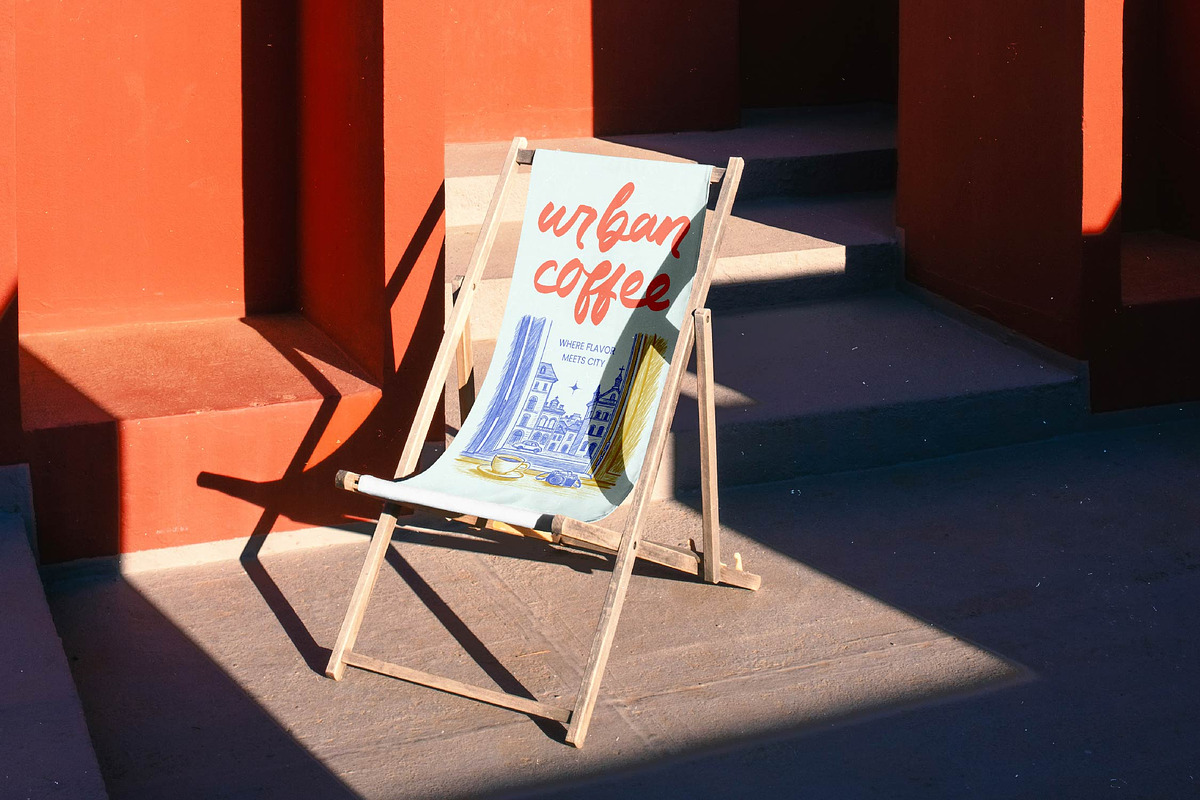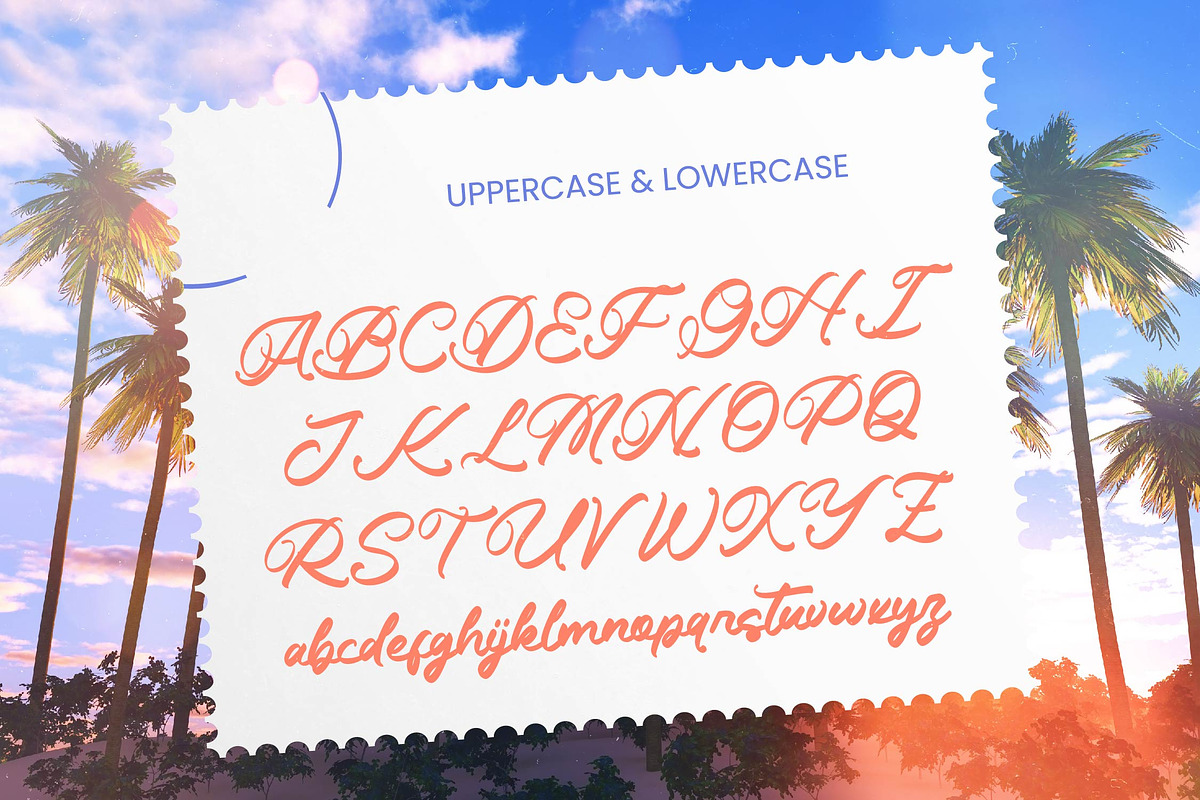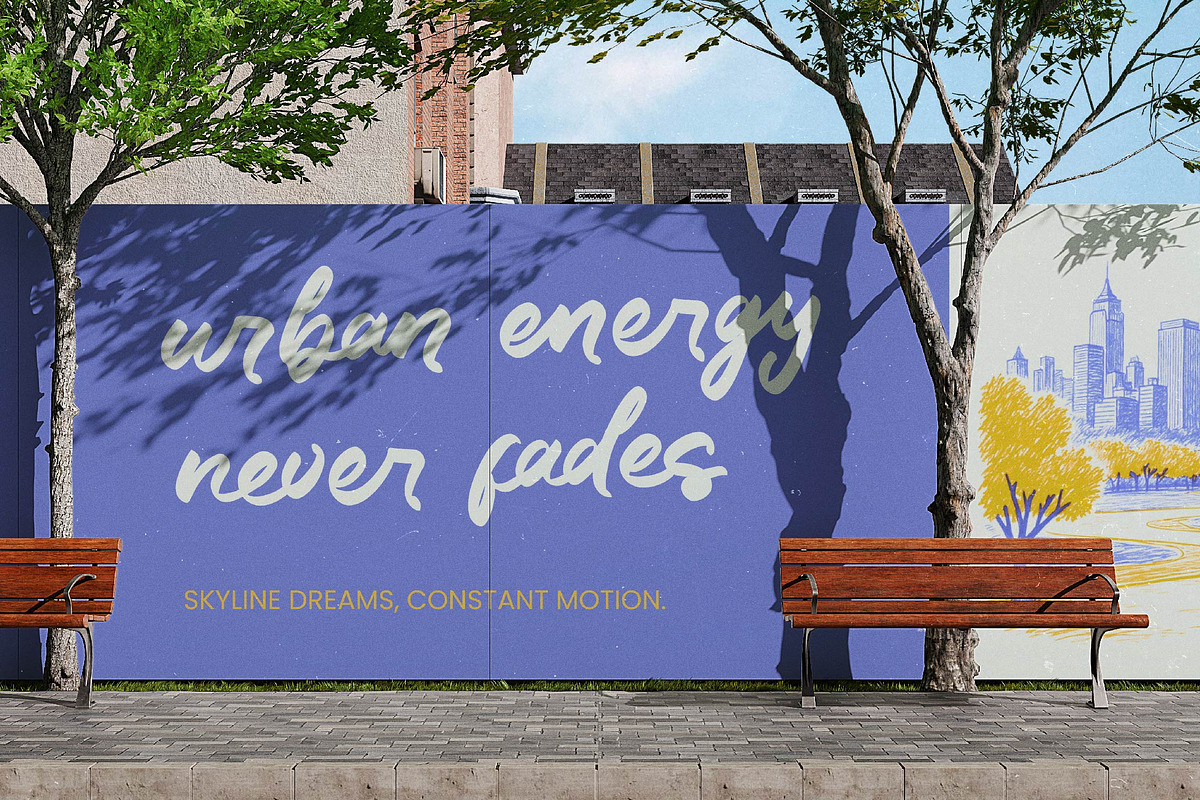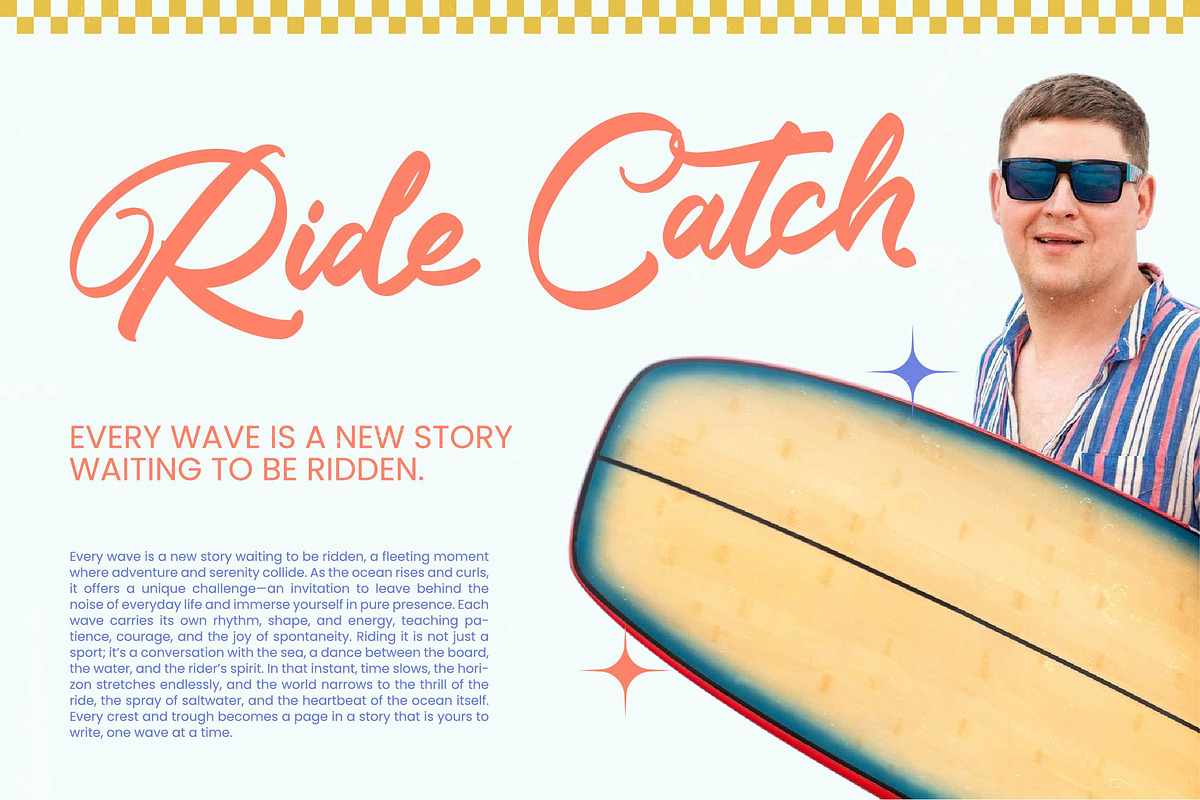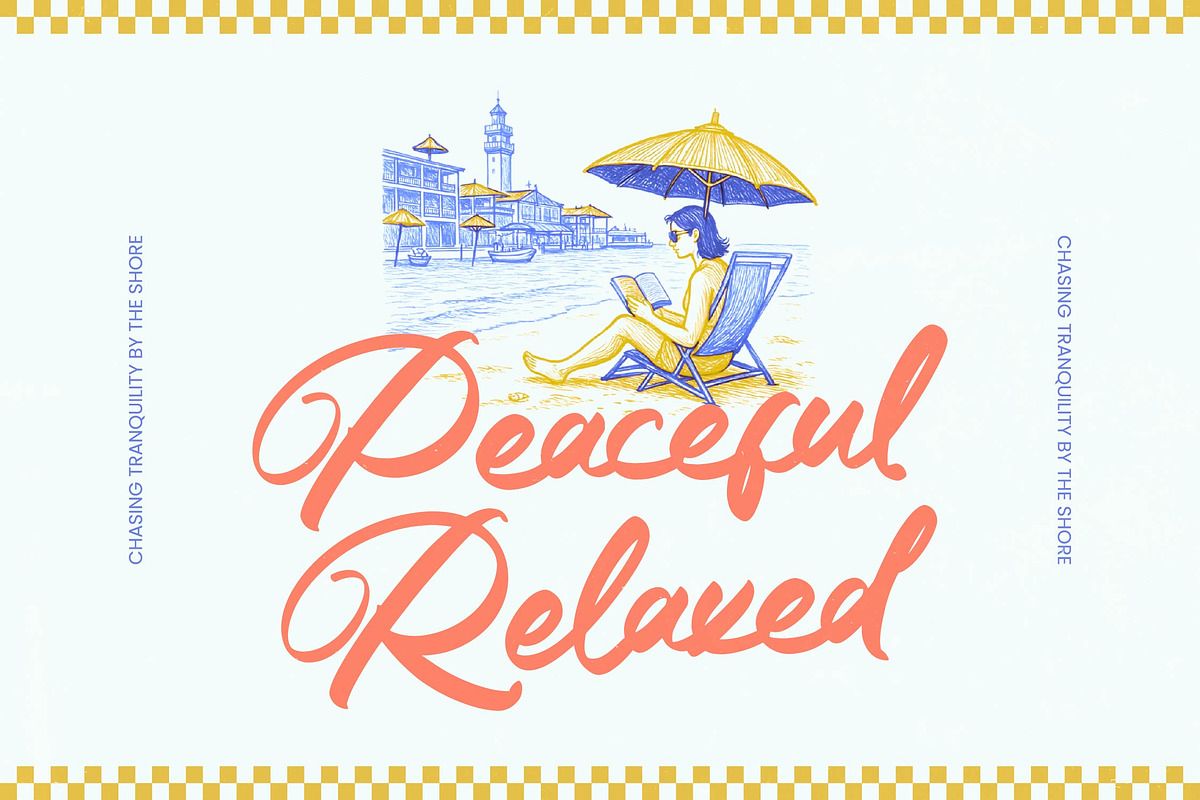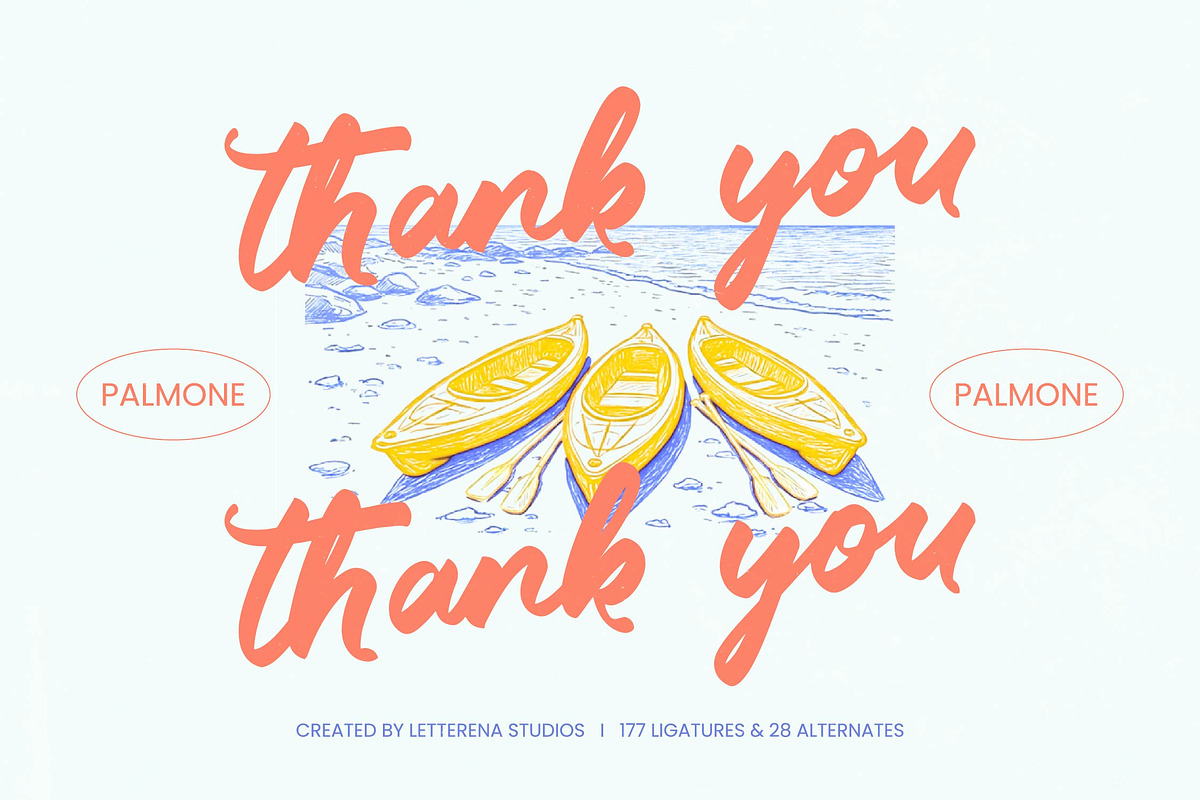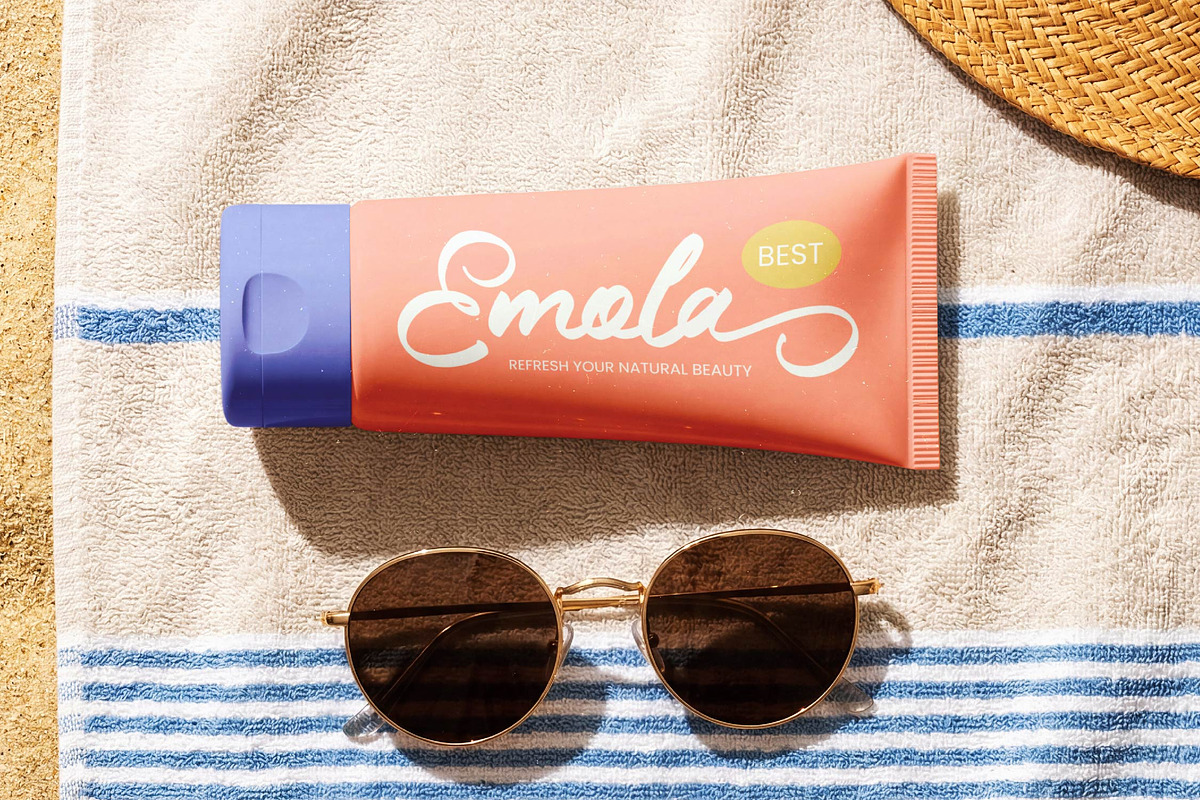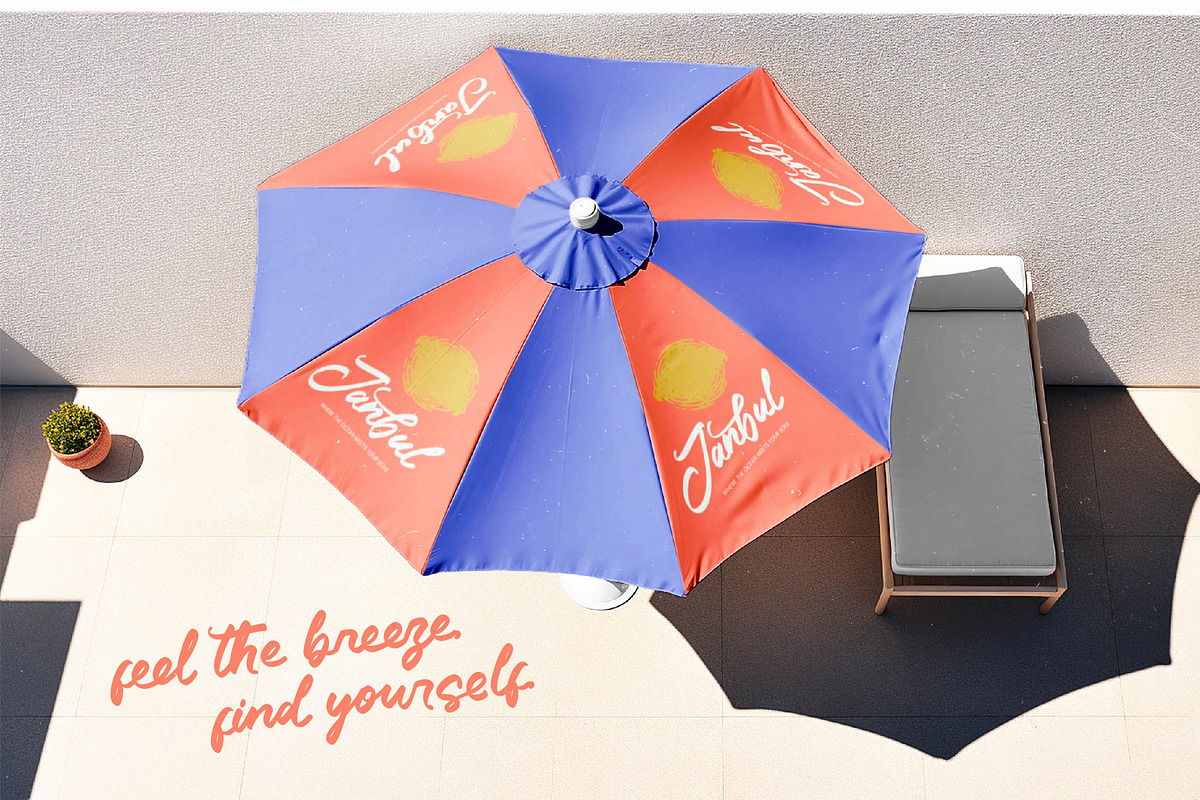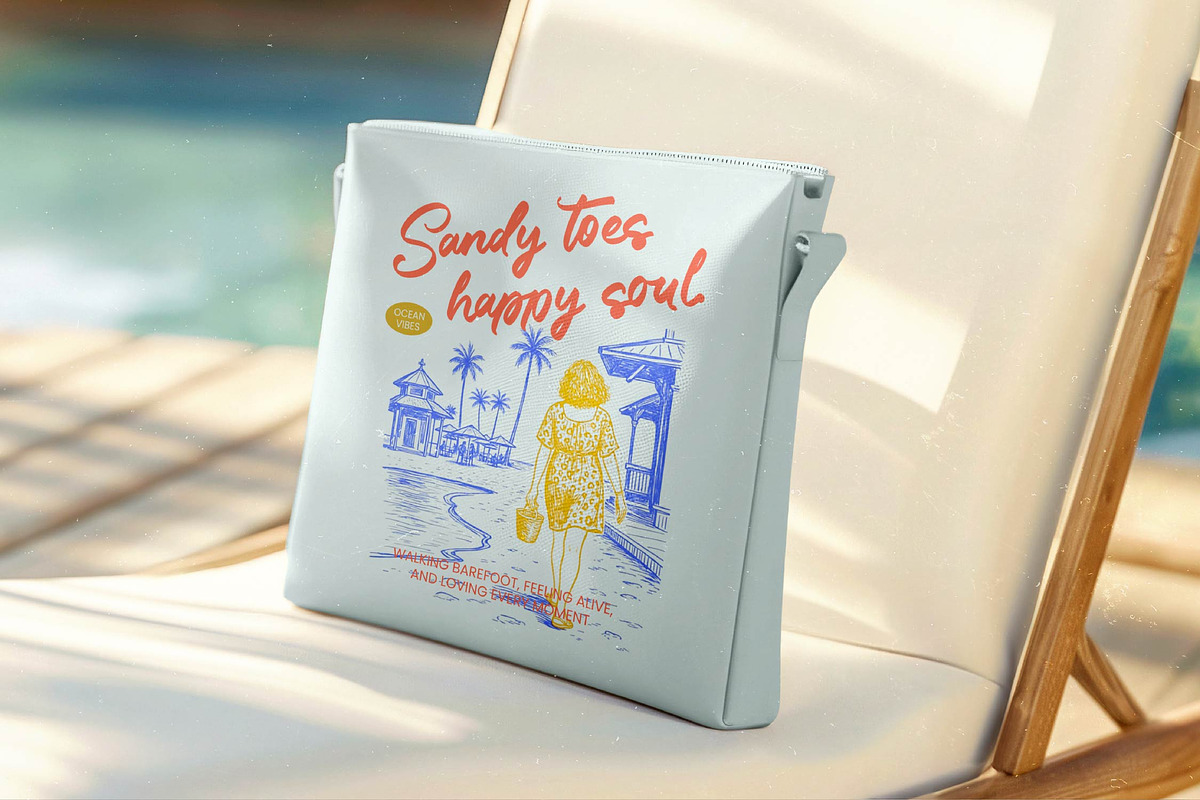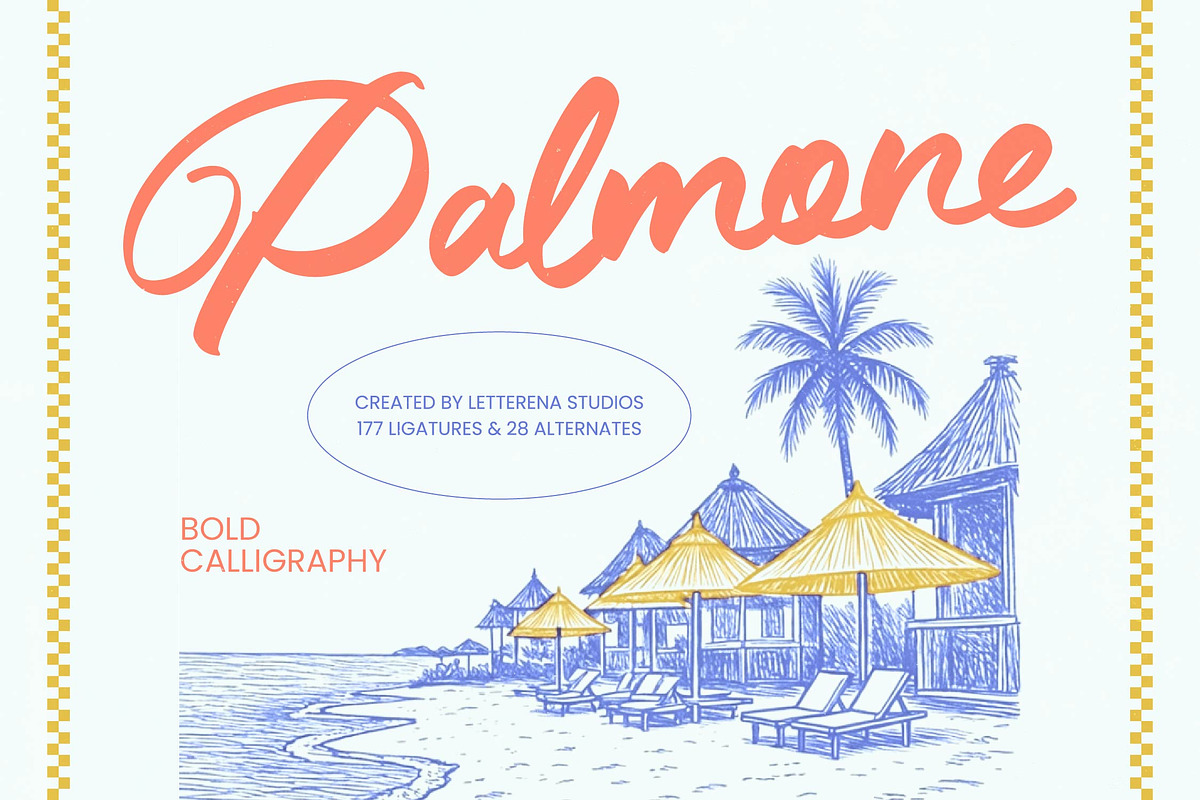
Palmone Bold Calligraphy
Palmone - Bold Calligraphy
Elevate your visual identity with a font that radiates confidence and artisanal flair. Palmone - Bold Calligraphy captures a sophisticated aesthetic that balances organic brush strokes with a bold, contemporary presence. Created by Letterena Studios, this typeface features 177 unique ligatures and 28 alternates, providing designers with the creative flexibility needed to craft truly distinctive typography.
Global reach is essential for modern brands looking to leave a lasting impression across diverse audiences. With its extensive multilingual support, Palmone - Bold Calligraphy adapts seamlessly across global markets, making it incredibly versatile for international projects. This inclusive character set ensures that your message remains consistent and visually impactful regardless of the region, making it a premier choice for world-class design initiatives.
Transform ordinary layouts into premium experiences with the perfect application of high-end script styling. Palmone - Bold Calligraphy is perfect for luxury branding, premium packaging, and editorial design where a high-contrast and personable touch is required. Whether it is used for summer-themed marketing, lifestyle magazines, or high-end cosmetics, this font adds a layer of exclusivity and warmth to any project.
Invest in a professional asset that bridges the gap between traditional craft and modern commercial needs. By choosing Palmone - Bold Calligraphy, you are selecting a versatile design tool that excels in digital marketing and print media alike. Its fluid legibility and bold silhouette make it an essential addition to any professional toolkit, ensuring your brand stands out in a competitive marketplace with effortless elegance.